Clean Curls® Brand Identity
Clean Curls uses the Asikue font to create a playful and modern brand identity that perfectly celebrates the natural beauty of curly hair.
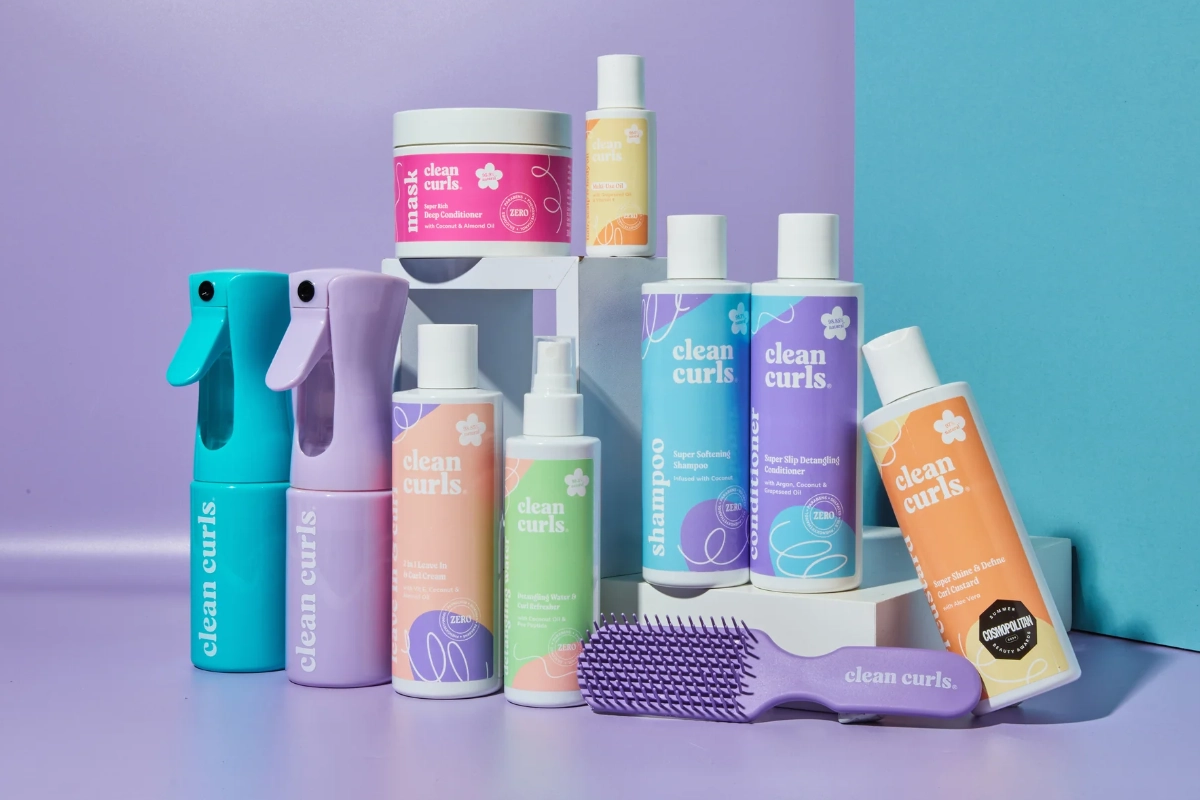
Clean Curls® is an innovative, non-toxic hair care brand dedicated to celebrating and enhancing the natural beauty of curly hair. Designed specifically for families and individuals seeking affordable and effective curl solutions, the brand’s visual identity balances a family-friendly ethos with a modern, cool aesthetic. The complete branding and packaging were beautifully crafted by TLG Design Studio to reflect a strong sense of care, energetic movement, and natural ingredients.
To capture the organic fluidity of curls, the project utilized Asikue as the core of its retro-inspired typography. The font’s dynamic curves and unique character shapes add a beautiful sense of movement and playfulness that effortlessly mirrors the brand’s lively spirit. By blending this expressive typography with hand-drawn illustrations, the packaging stands out on the shelves while remaining highly approachable and fun. Ready to infuse your own design projects with this energetic vibe?
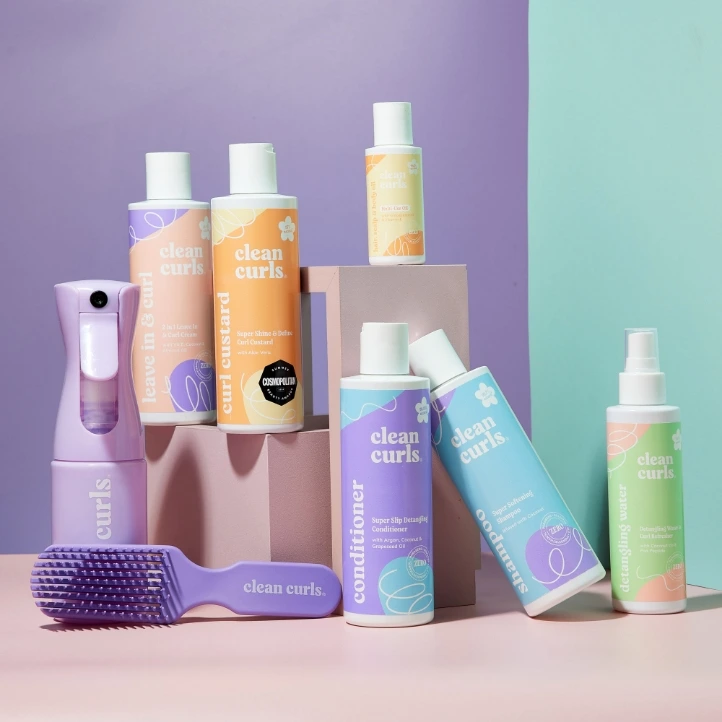
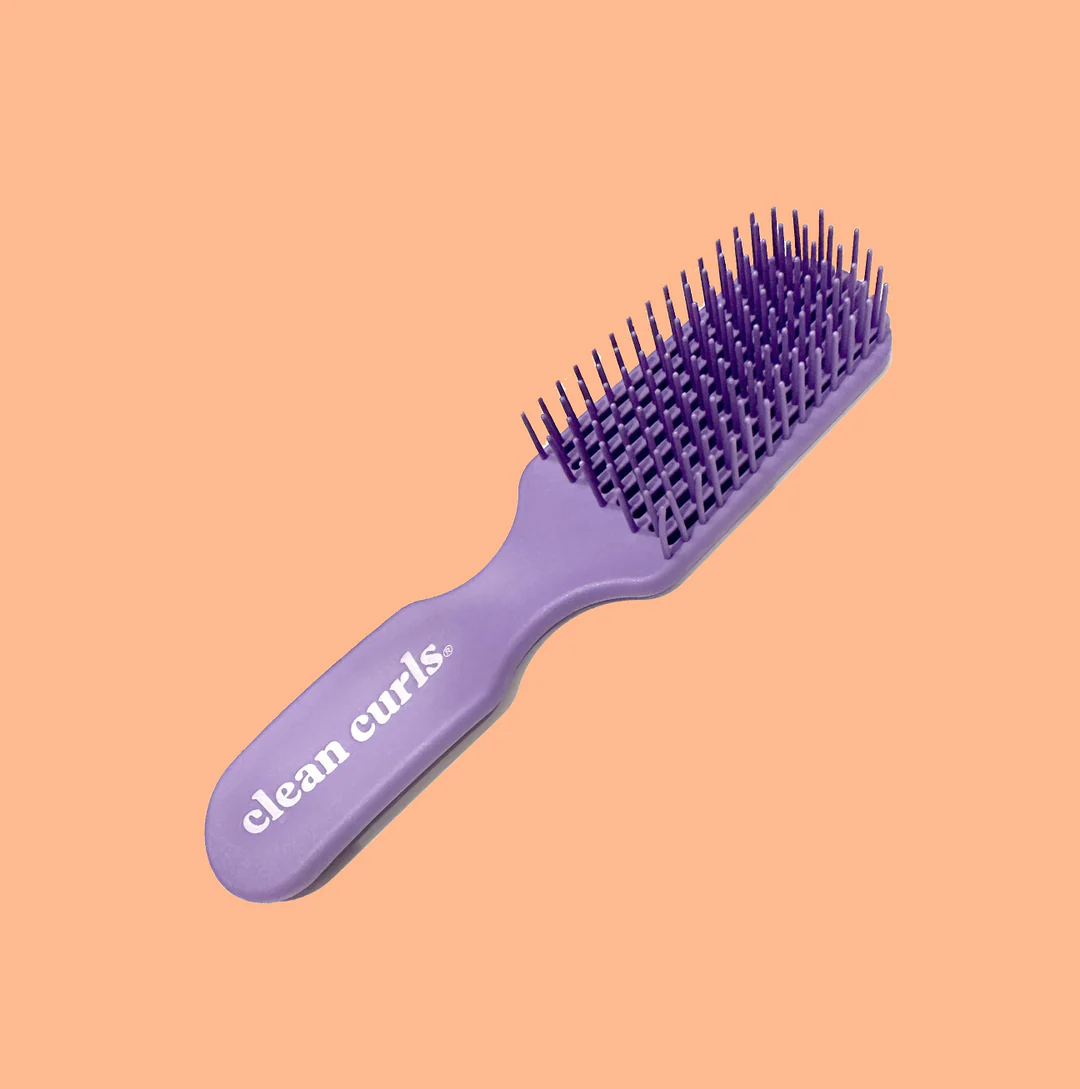Clean Curls hair care products featuring Asikue font in use
Clean curls comb Asikue font in use
clean curls brand identity and packaging
Clean curls custard product
Hand holding a spray bottle of detangling water against a purple background featuring Asikue font in use
Top-down view of a leave-in curl cream bottle on a lavender surface featuring Asikue font in use
Grid of colorful Instagram post mockups for a hair care brand featuring Asikue font in use
Purple hair detangler brush with its minimalist packaging box featuring Asikue font in use
Two colorful mini sachets for shampoo and conditioner products featuring Asikue font in use
Multiple bottles of hair care products lined up on a retail store shelf featuring Asikue font in use
Four purple detangling brushes arranged diagonally on a clean white surface featuring Asikue font in use
Three women with natural curly hair standing next to product line graphics featuring Asikue font in use
Top-down view of a leave-in curl cream bottle on a lavender surface featuring Asikue font in use
A complete lineup of six hair and skin care bottles in pastel colors featuring Asikue font in use
Single bottle of conditioner with a dollop of cream product on the side featuring Asikue font in use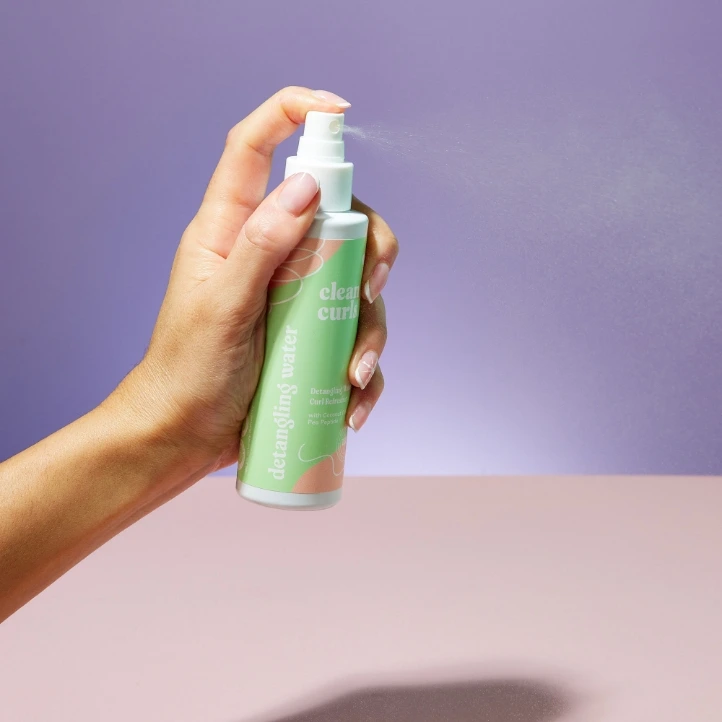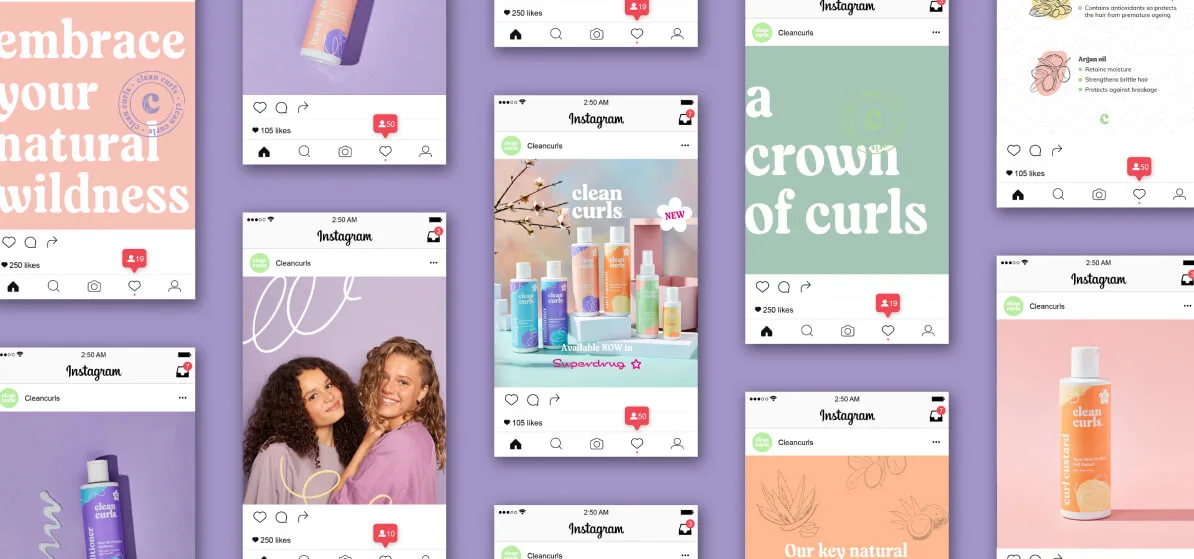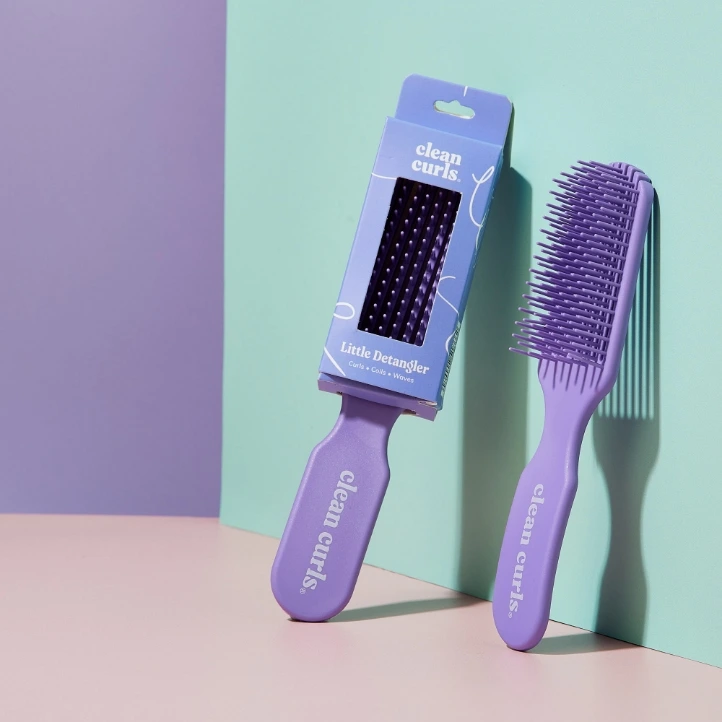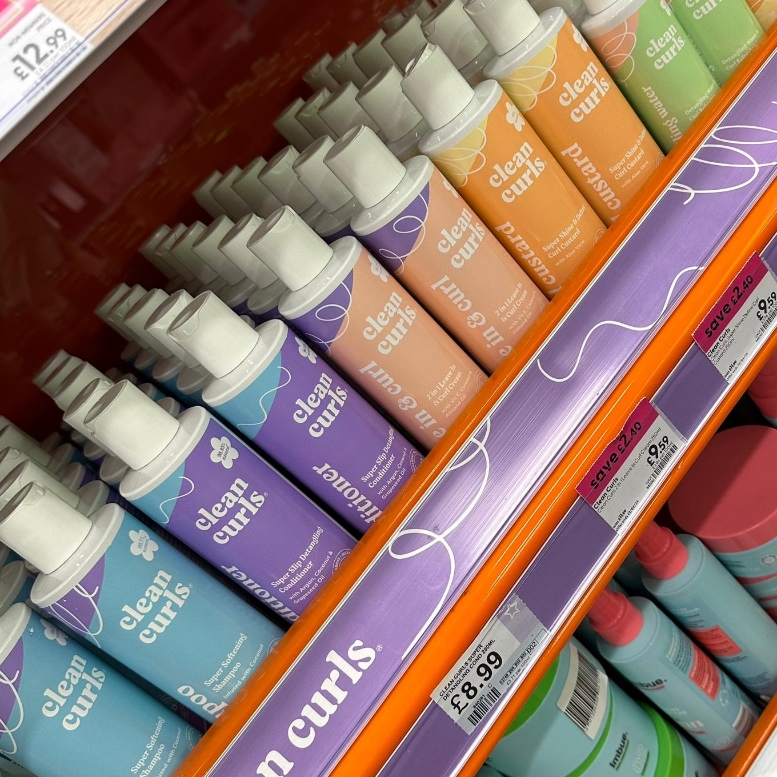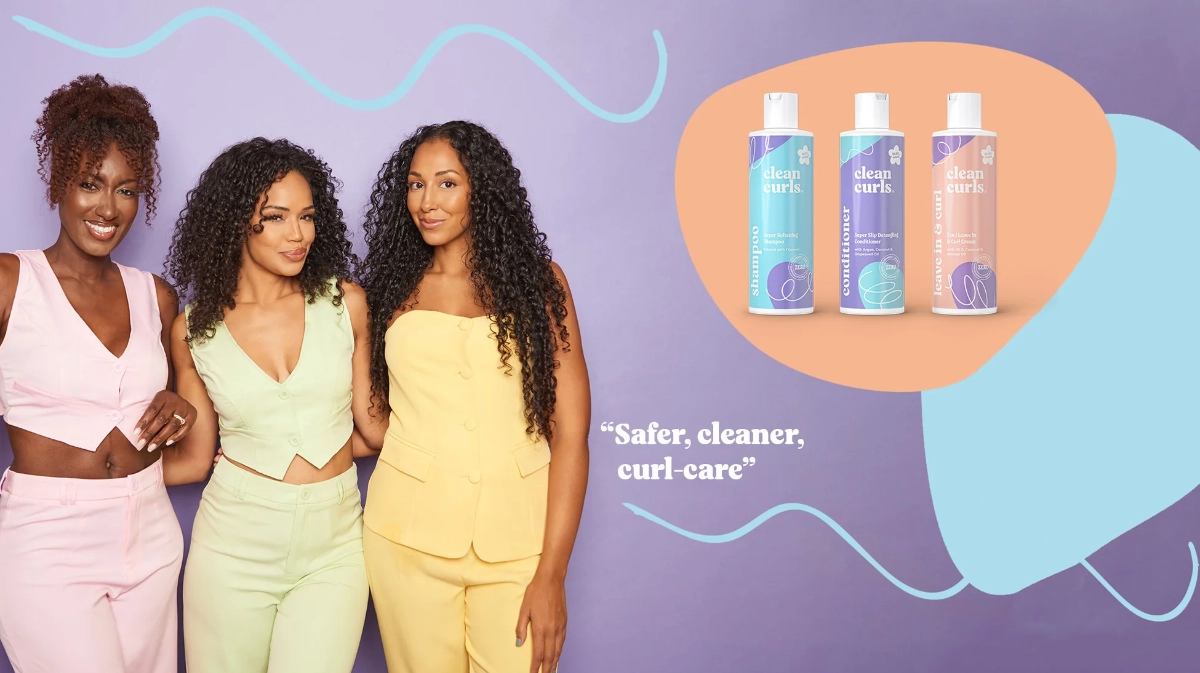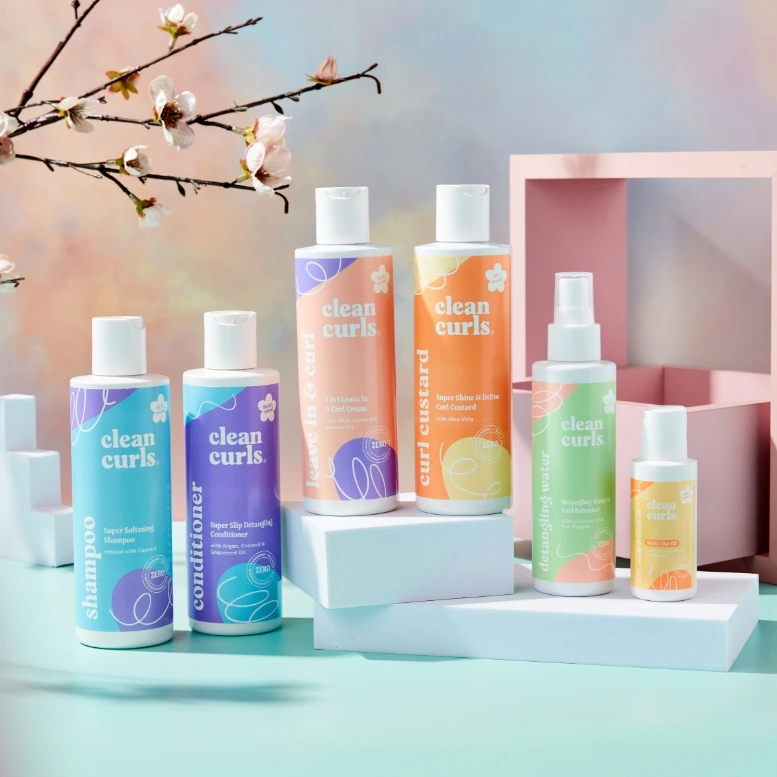